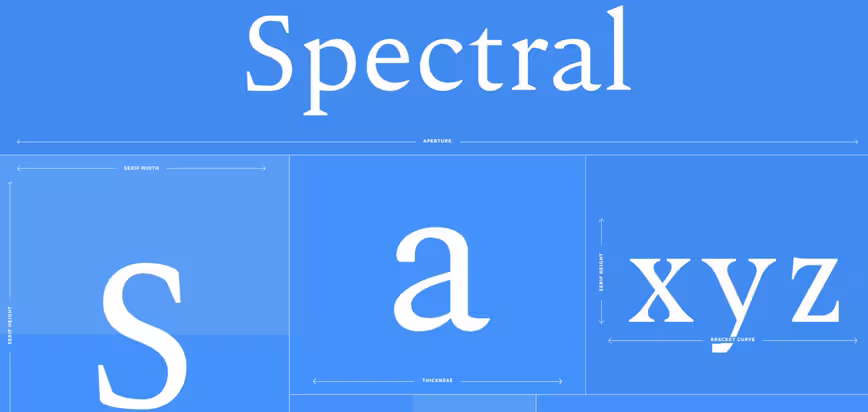
New ‘responsive’ Google Font can shapeshift to match any design
Google Fonts is getting more customizable and interactive. The company has updated its collection with its very first ‘parametric’ font – a new typographic technology that makes it easy for designers to tweak and modify the format of virtually any typeface.
Developed in collaboration between Prototypo and Production Type, Spectral follows the principles of responsive design, which means the font retains the capacity to alter its form in order to seamlessly fit in with the overall layout of your page.
“Opening up to a new era of type design, [our] parametric font technology allows to work with responsive characters improving creativity and exploring new shapes,” Prototypo said in a press release. “Creating intelligent fonts capable of fitting all types of uses and media is now a reality.”
Among other things, Spectral gives designers the option to adjust various font aspects like width, thickness and curviness. The typeface will be available in various Google services including Docs, Sheets and Slides.
Here is how this looks in action: